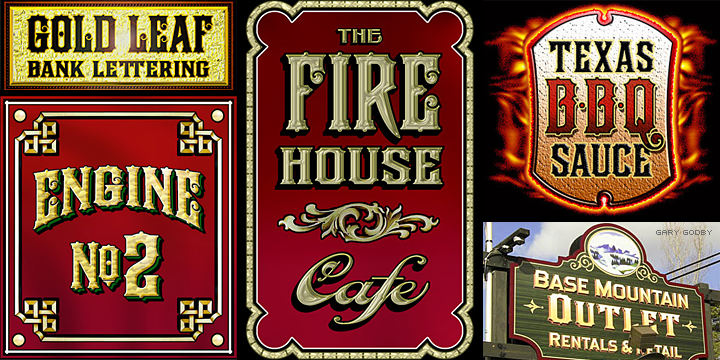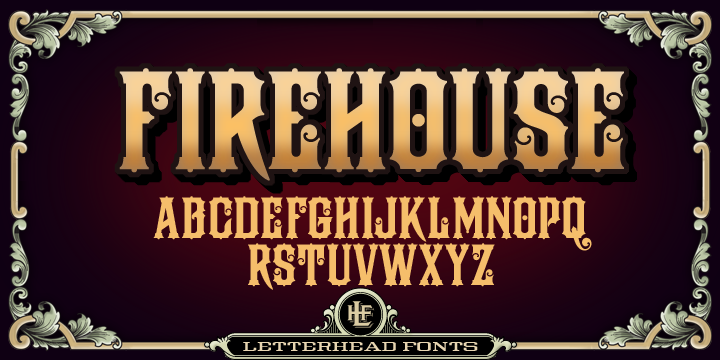
Designed by Tom Kennedy, LHF Firehouse is a display sans font published by Letterhead Fonts.
This style was actually inspired by some old stock certificates Tom had collected. It ís a very versatile font and allows for some horizontal stretching. Fits almost any space.